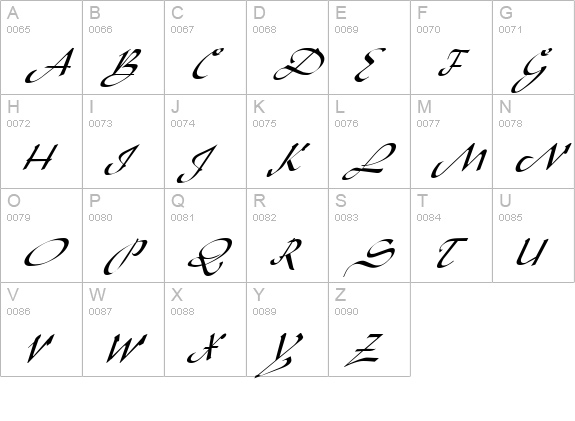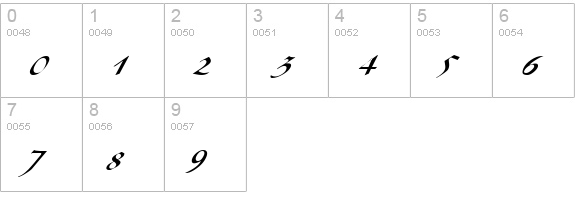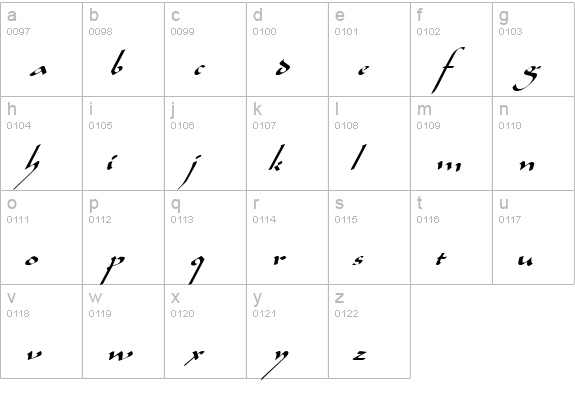
Sinbad Italic Font Details
Sinbad Italic is a distinctive, italic variant in the Sinbad typeface family \xE2\x80\x94 well suited to design and typography projects.
Introducing Sinbad Italic, a captivating and enchanting font that effortlessly blends elegance with a touch of adventure. This unique typeface brings a sense of whimsy and intrigue to any design project, making it the perfect choice for those seeking to add a dash of magic to their creations. Sinbad Italic features graceful, slanted letterforms that flow seamlessly, creating a sense of movement and dynamism. The subtle curves and delicate strokes lend an air of sophistication, while the slightly italicized design adds a hint of playfulness and spontaneity. With its versatile nature, Sinbad Italic is suitable for a wide range of applications. From branding and logo designs to invitations, posters, and packaging, this font will effortlessly elevate any project to new heights. Whether you're aiming for a modern and sleek aesthetic or a vintage-inspired look, Sinbad Italic provides the versatility to adapt to any style. One of the most appealing aspects of Sinbad Italic is that it is freely available to download at FontsMarket.com. This means that you can easily access this stunning font without any cost, making it an excellent choice for designers on a budget or those simply looking to experiment with new fonts. So why wait? Let Sinbad Italic take you on a typographic journey like no other. Download this captivating font today and unlock a world of endless design possibilities.